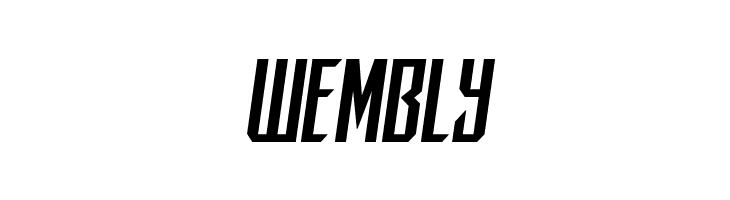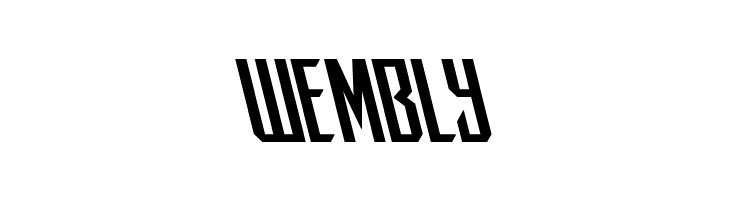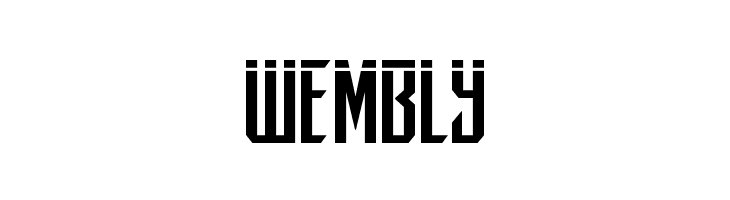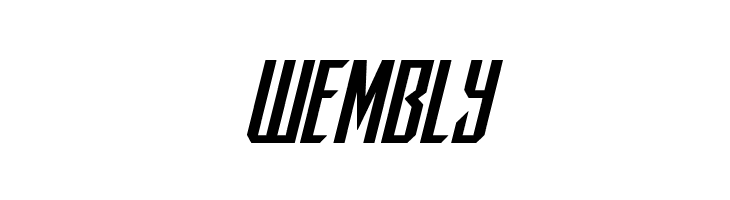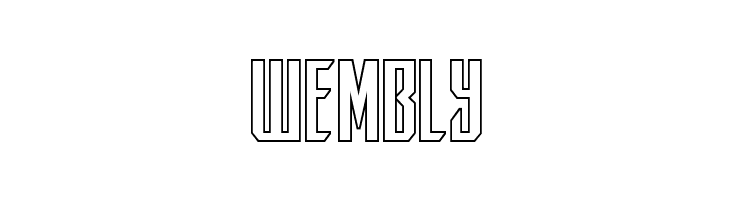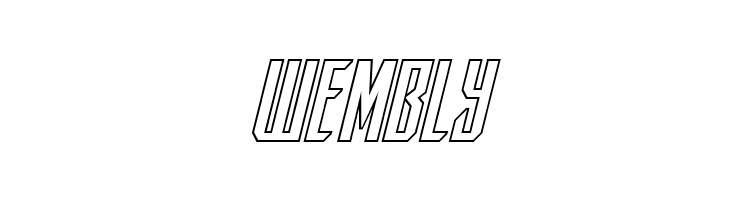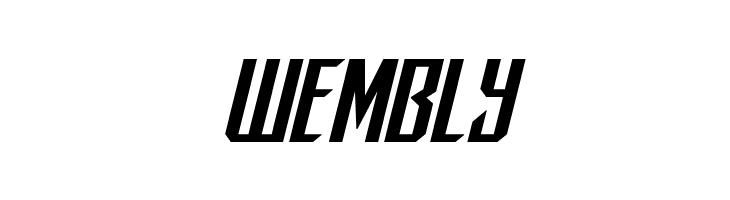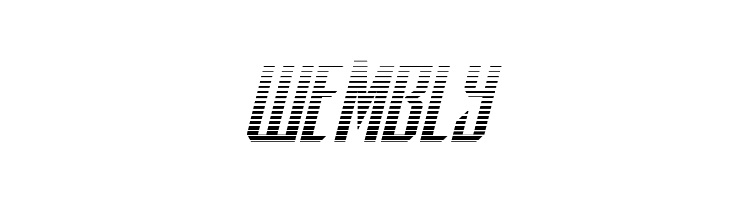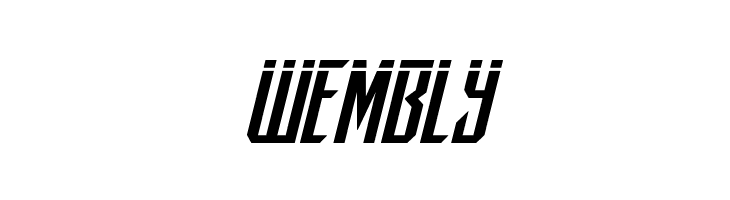
Dark Dominion Leftalic Font
A bold, angular font with a leftward slant and high contrast.
Dark Dominion Outline Font
A bold, geometric outline font with sharp angles and a modern aesthetic.
Dark Dominion Outline Italic Font
A bold, outlined, and italicized font with angular, geometric characters.
Dark Dominion Semi-Italic Font
A bold, angular, and italicized font with a modern and dynamic style.
Dark Dominion Super-Italic Font
A bold, italic font with sharp angles and a dynamic, energetic style.
Dark Dream Font
A bold, distressed font with a rugged, vintage aesthetic.
Dark elf Font
A mystical, fantasy-inspired font with sharp, angular serifs and elegant embellishments.
DARK EMPIRE Font
A bold, gothic-inspired font with sharp, angular lines and a dramatic presence.
Dark Empire Font
A futuristic, angular font with sharp edges and geometric shapes.
dark entries Font
A bold, hand-drawn font with sharp, angular strokes and a dynamic, graffiti-like style.
Dark Family Font
An ornate blackletter font with intricate, medieval-inspired design.
Dark Fantasy Font
A bold, horror-themed decorative font with sharp, dripping strokes.
Dark Flame Font
A bold, flame-inspired decorative font with sharp, jagged edges.
Dark Flowers Garden Font
A bold, dripping font with a horror-themed, decorative style.
dark forest Font
A bold, geometric font with a modern, tech-inspired aesthetic.
dark forest 1 Font
A futuristic, striped font with a bold, geometric design.
dark forest 1 Font
A futuristic, striped font with a geometric and digital aesthetic.
Dark Future Italic Font
Futuristic, angular, and italicized font with bold geometric shapes.
Dark Garden Font
A bold, decorative font with flame-like, intricate designs on each character.